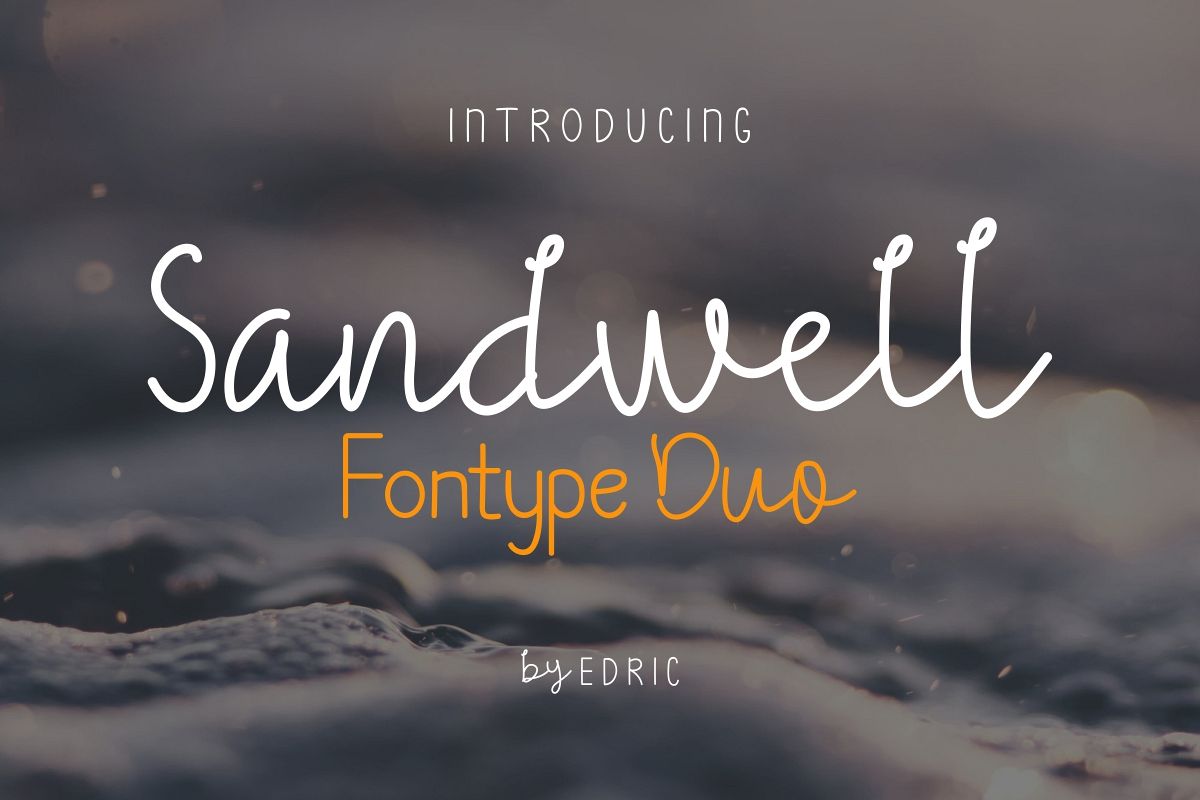
Sandwell
Introducing our newest font family : Sandwell !
Sandwell is a new font duo. It has an exclusive, elegant and stylish glyphs. It also support multilanguage accentsWhat’s include on the zip :